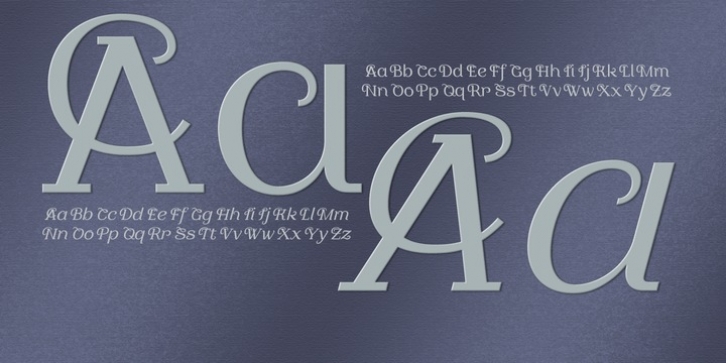
Decora Pro font family is designed by Naghi Naghashian. A modern interpretation of classic Roman characters in 1 weigh and 2 styles: Regular and Regular Italic. It is a Liaison between the classic Roman typeface and script style. The character set of this Font family supports most western languages including: Afrikaans, Basque, Breton, Catalan, Danish, Dutch, English, Finnish, French, Gaelic, German, Icelandic, Indonesian, Irish, Italian, Norwegian, Portuguese, Sami, Spanish, Swahili and Swedish. There are 17 additional symbol characters: euro, litre, estimated, omega, pi, partialdiff, delta, product, summation, radical, infinity, integral, approxequal, notequal, lessequal, greaterequal, and lozenge. It also includes the characters necessary to support the following central European languages: Croatian, Czech, Estonian, Hungarian, Latvian, Lithuanian, Polish, Romanian, Serbian (Latin), Slovak, Slovenian and Turkish.